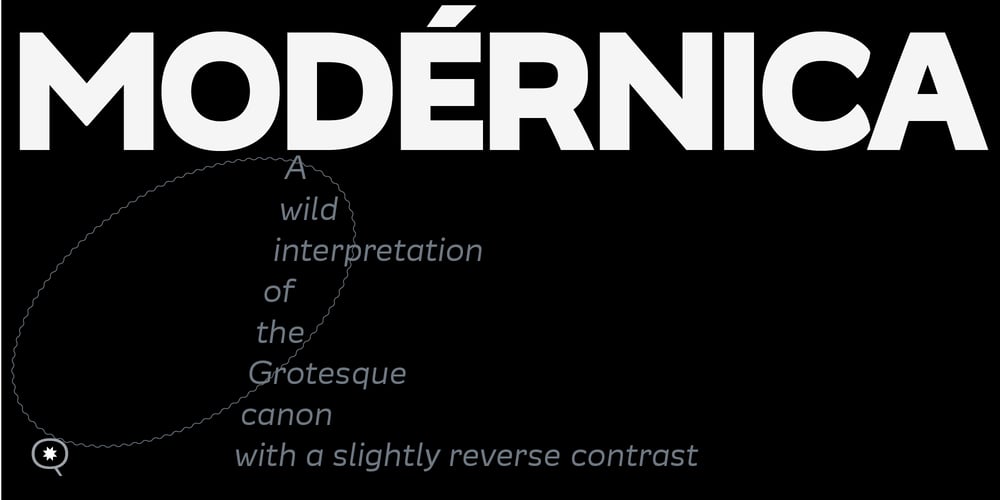
Modernica Font Family was designed by Javier Quintana Godoy and published by Quintana-Font. Modernica contains 18 styles and family package options. Modérnica is a sans serif type including roman & oblique styles in 9 weights. Originally published in 2014, then in 2020 we released version 2.0, in which we expanded the language coverage and character set, adding a new Fat weight, tabular figures, smart fractions & arrows. We’ve improved the OpenType features adding new Stylistic Sets. Besides this, we have retuned the letters spacing in the whole family. Seeking for the best performance, we added a bit of spacing between letters in the text versions (middle weights from Book to Bold), while as for the display variants (extreme weights from Thin to Fat) we made them gain space in the light versions and loose it in the blacks.